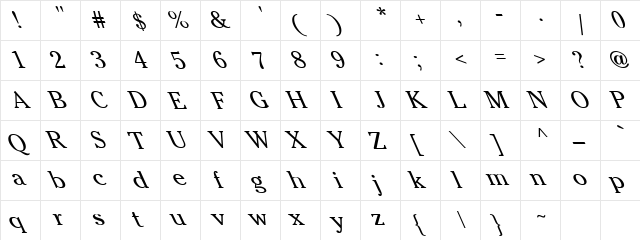
Cheltenham-Normal Extreme Lefty Regular
Design Context for Cheltenham-Normal Extreme Lefty Typeface
Cheltenham-Normal Extreme Lefty is a composed and adaptable typeface that performs quietly and consistently across a wide range of design contexts.